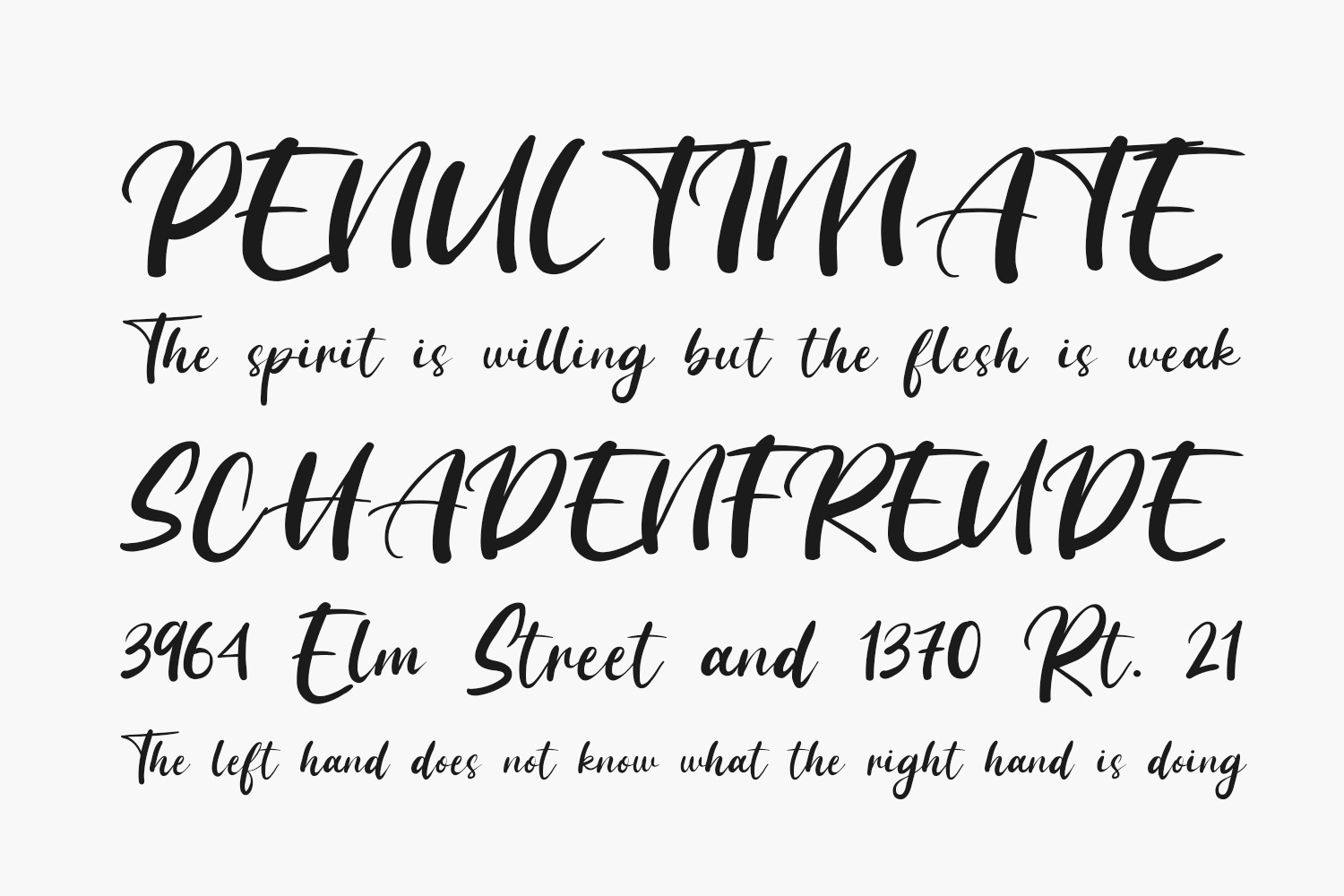
Handayani Free Font is a flexible, dainty, and cursive paint-brushed handwritten font. It looks beautiful on a variety of designs requiring a personalized style, such as wedding invitations, thank you cards, weddings, greeting cards, logos, and so on. Handayani Free Font was designed by Bluestype Studio and is free for personal use only. Please purchase the full version for commercial use.